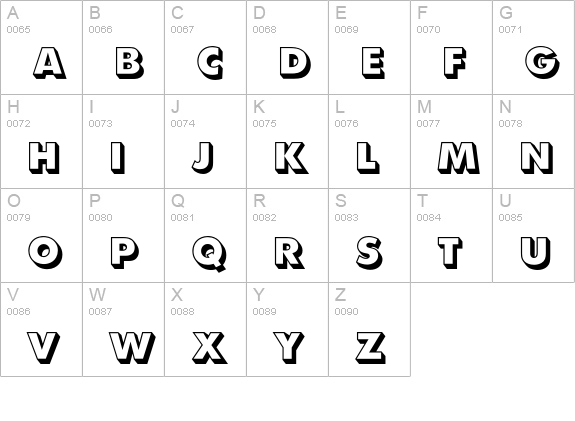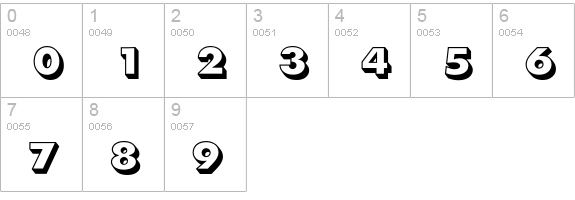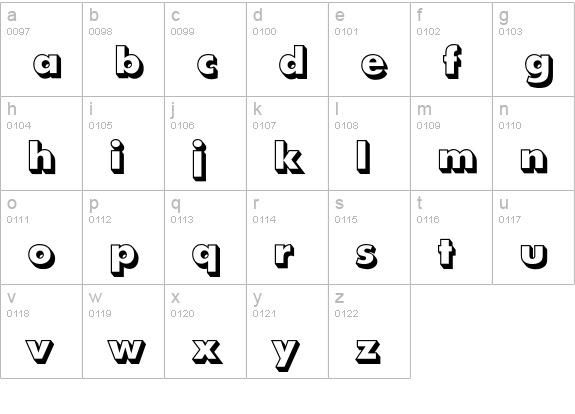
Futura Extra Bold Shaded is a strong, high-contrast variant in the Futura typeface family \xE2\x80\x94 well suited to headlines, attention-grabbing titles, and strong calls-to-action.
Futura Extra Bold Shaded font is a striking and dynamic typeface that exudes a sense of power and modernity. The bold and shaded design of this font makes it perfect for grabbing attention and adding a touch of sophistication to any project. This font is not only visually appealing but also incredibly versatile, suitable for a wide range of design applications including headlines, posters, logos, and more. Its strong presence on the page ensures that your message will be conveyed with impact and style. Best of all, Futura Extra Bold Shaded font is available for free download at FontsMarket.com. This means that you can easily access this high-quality typeface without any cost, making it a valuable addition to your font collection. Don't miss out on the opportunity to enhance your designs with this eye-catching and powerful font today.